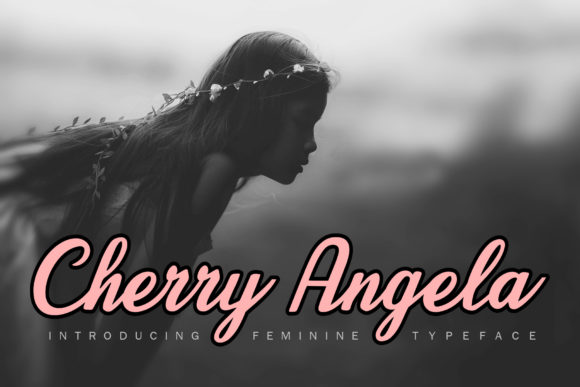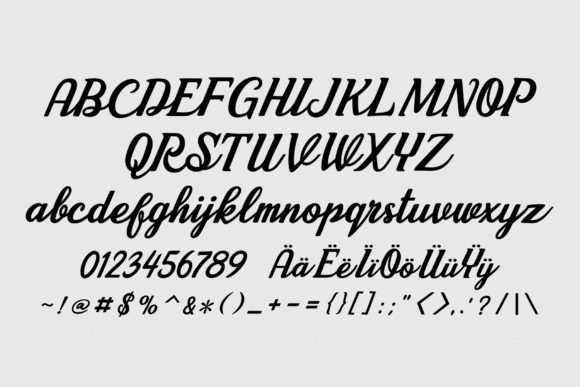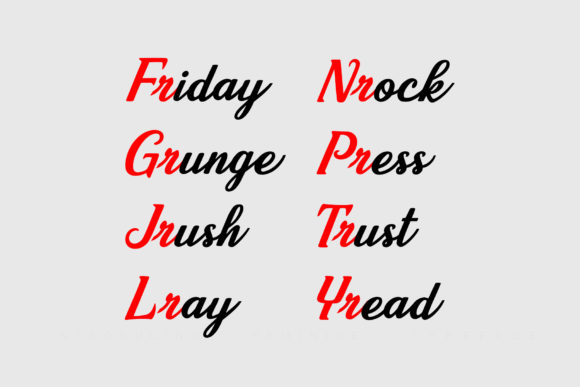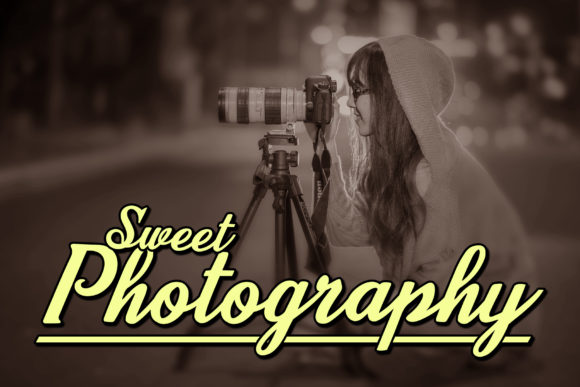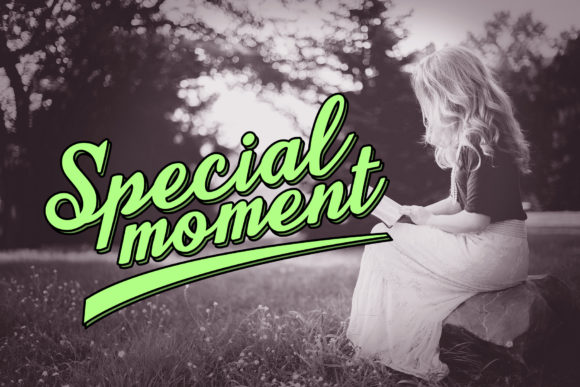
Cherry Angela Script Font
About Cherry Angela Script Font
Cherry Angela is pretty and delicate script font. You can use for poster titles, branding or any design project that requires a sweet touch.